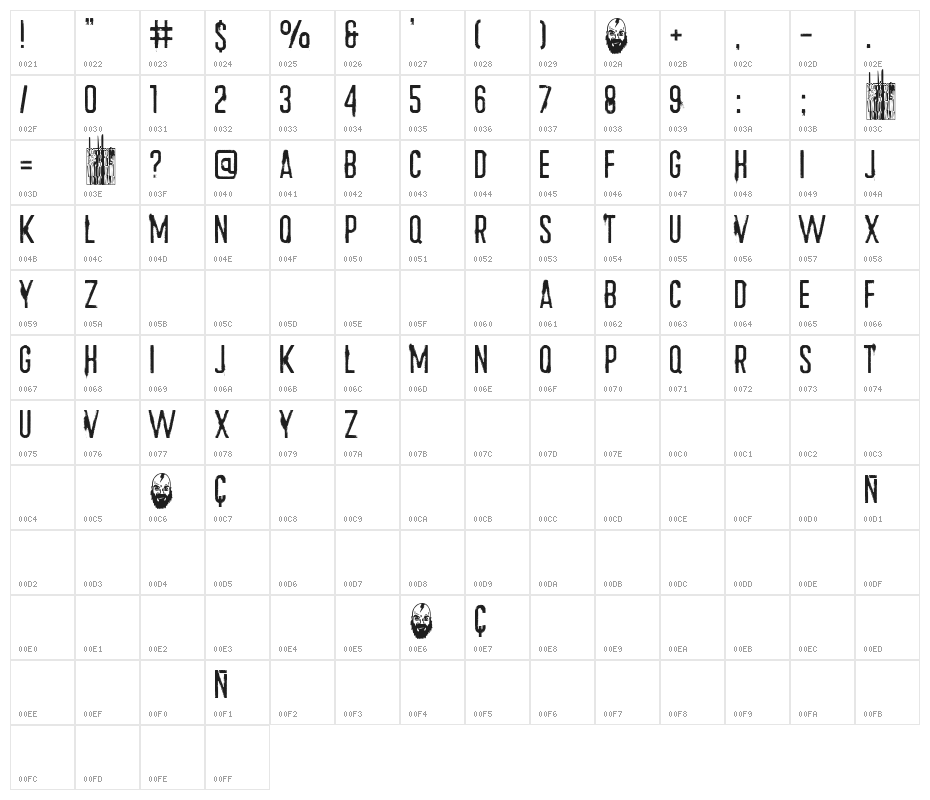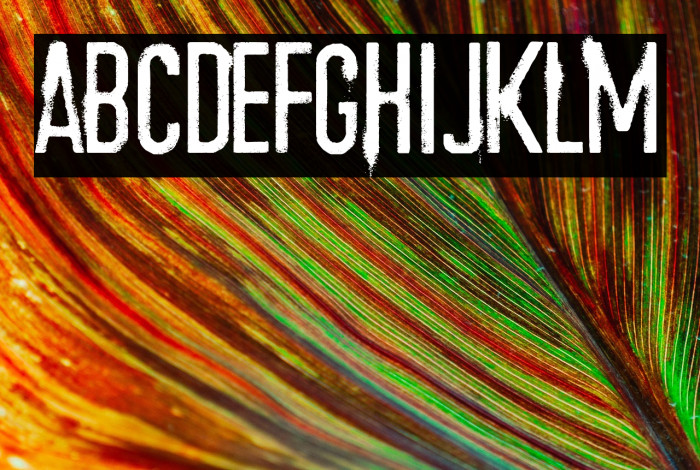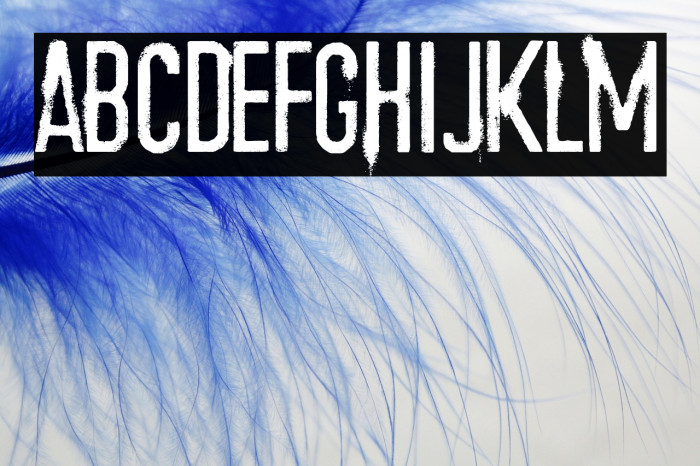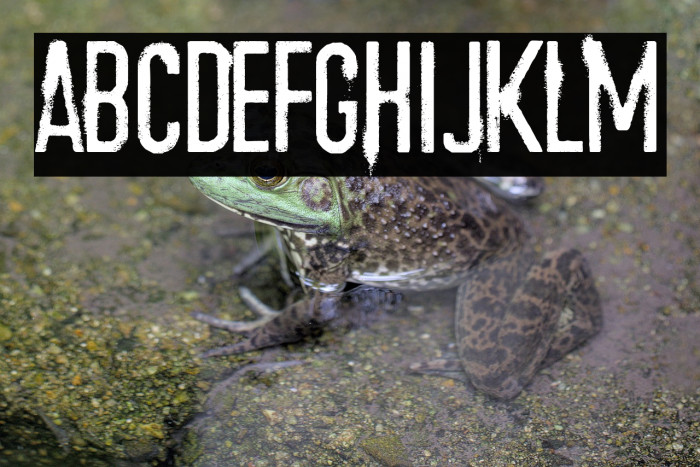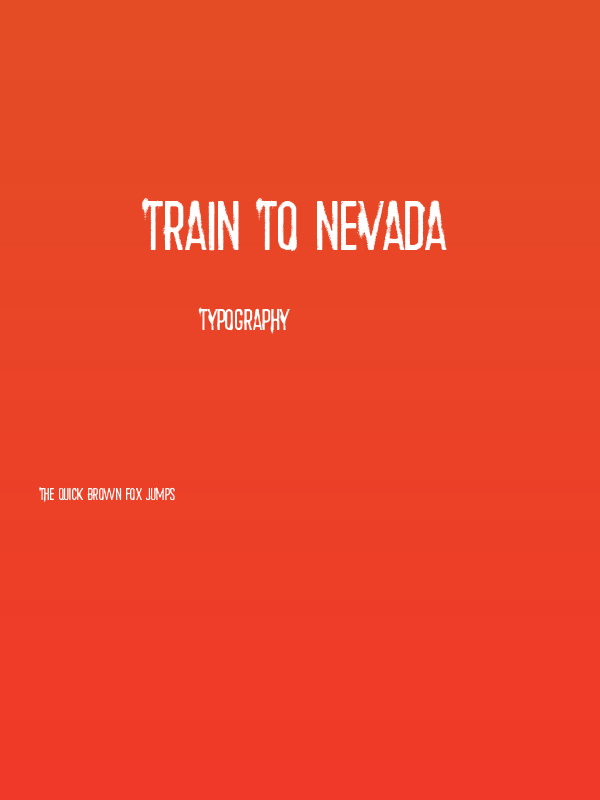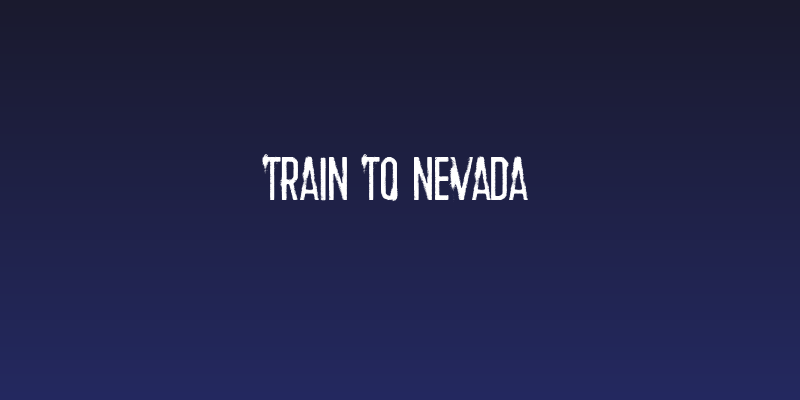
Train to Nevada Font
Train to Nevada Description
This font features a distressed, grunge style with a bold and impactful presence. The uppercase and lowercase letters are designed with a rough texture that gives an impression of wear and tear, adding a vintage and rugged feel. The characters are tall and narrow, with a consistent height across the alphabet, creating a uniform appearance. The numbers and special characters maintain the same distressed aesthetic, ensuring a cohesive look throughout. This font is ideal for projects that require a bold statement with a touch of edginess and character.
| Overall Style | Vintage, Grunge |
| Proposed Projects | Perfect for posters, album covers, branding for edgy products, or any design needing a vintage, rugged look. |